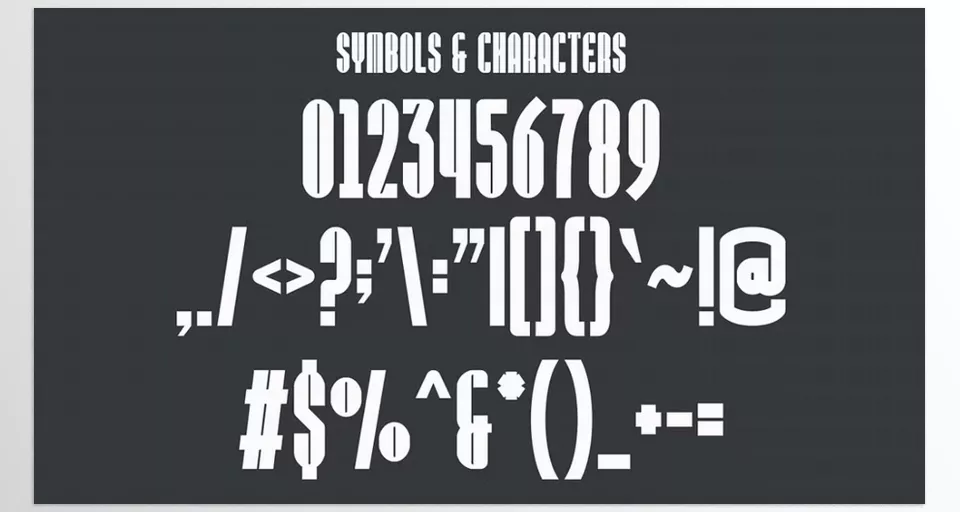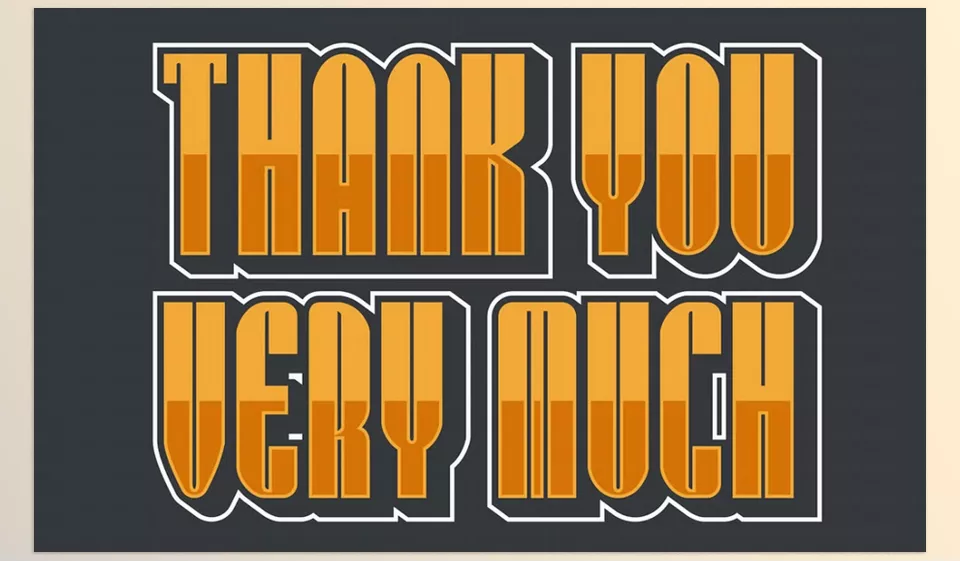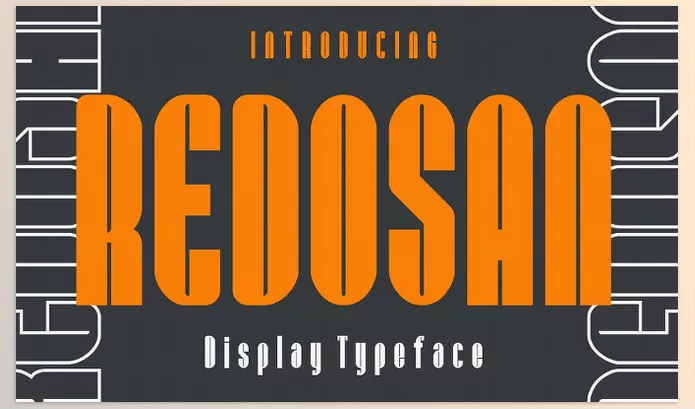
CreativeMarket – Redosan is a flexible font best for virtual and print projects, presenting uppercase, lowercase, numbers, and punctuation. Ideal for branding, garb, posters, and more, it includes OTF and TTF codecs for innovative flexibility.
lelevien – Redosan Features
• Versatile Usage: Perfect for diverse layout needs, such as branding, trademarks, and massive-scale innovative works.
• Sleek and Contemporary: Features a clean, contemporary aesthetic that aligns with current design trends.
• Complete Character Set: Provides uppercase and lowercase letters, numbers, and punctuation for flexibility.
• Premium Quality: Expertly crafted for seamless overall performance in each print and digital codec.
Image 1: A modern and versatile typeface crafted for both print and digital creativity.
CreativeMarket - Redosan - A modern and versatile typeface crafted for both print and digital creativity.
Image 2: Elegant character design that adapts seamlessly to any project.
CreativeMarket - Redosan - Elegant character design that adapts seamlessly to any project.